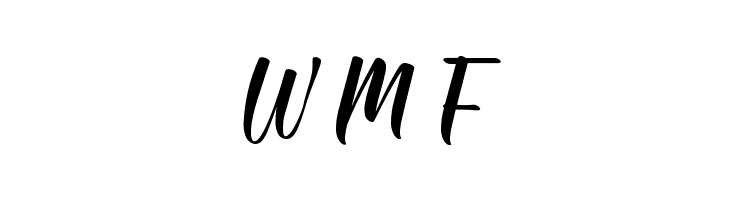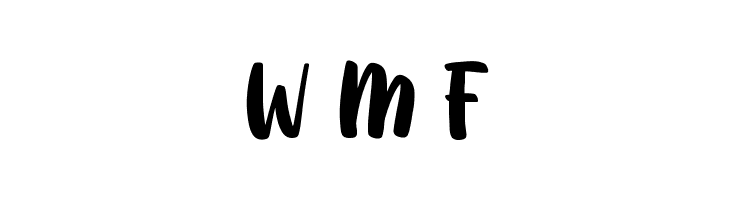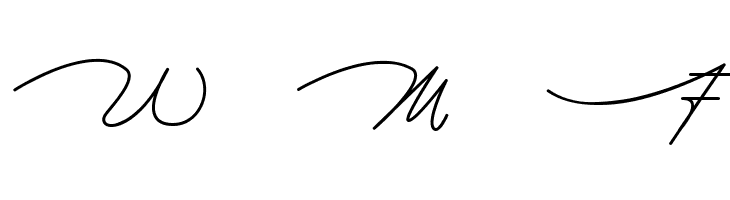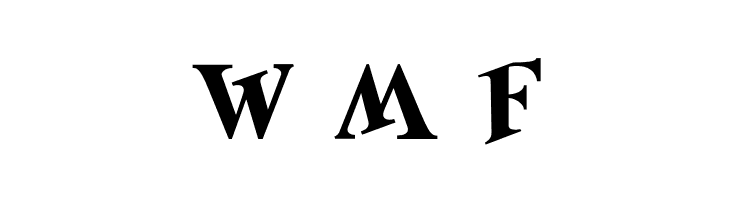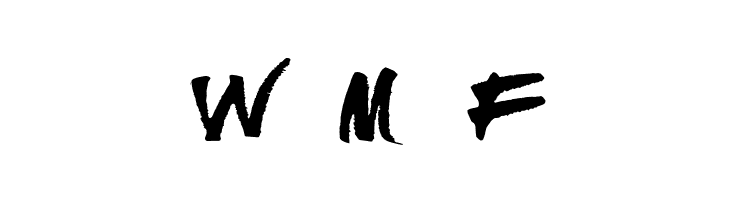
A flowing, cursive script font with elegant, handwritten characteristics.
A bold, brush-style font with a distressed, hand-drawn texture.
A modern outline font with bold, well-defined characters.
A bold, expressive handwritten font with playful curves and thick strokes.
A playful, rounded font with smooth curves and a friendly appearance.
A flowing, elegant script font with connected, cursive characters.
A bold and expressive script font with dynamic curves and modern elegance.
A bold, playful handwritten font with thick, rounded strokes and a lively appearance.